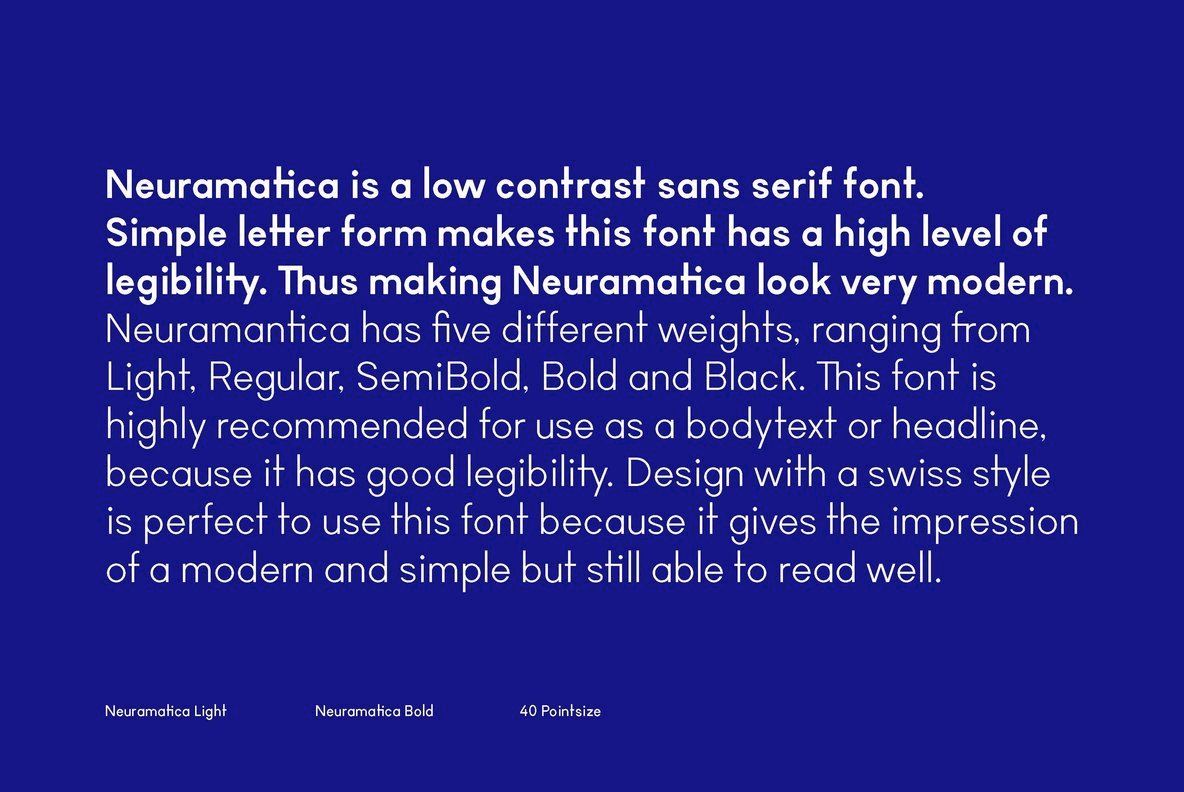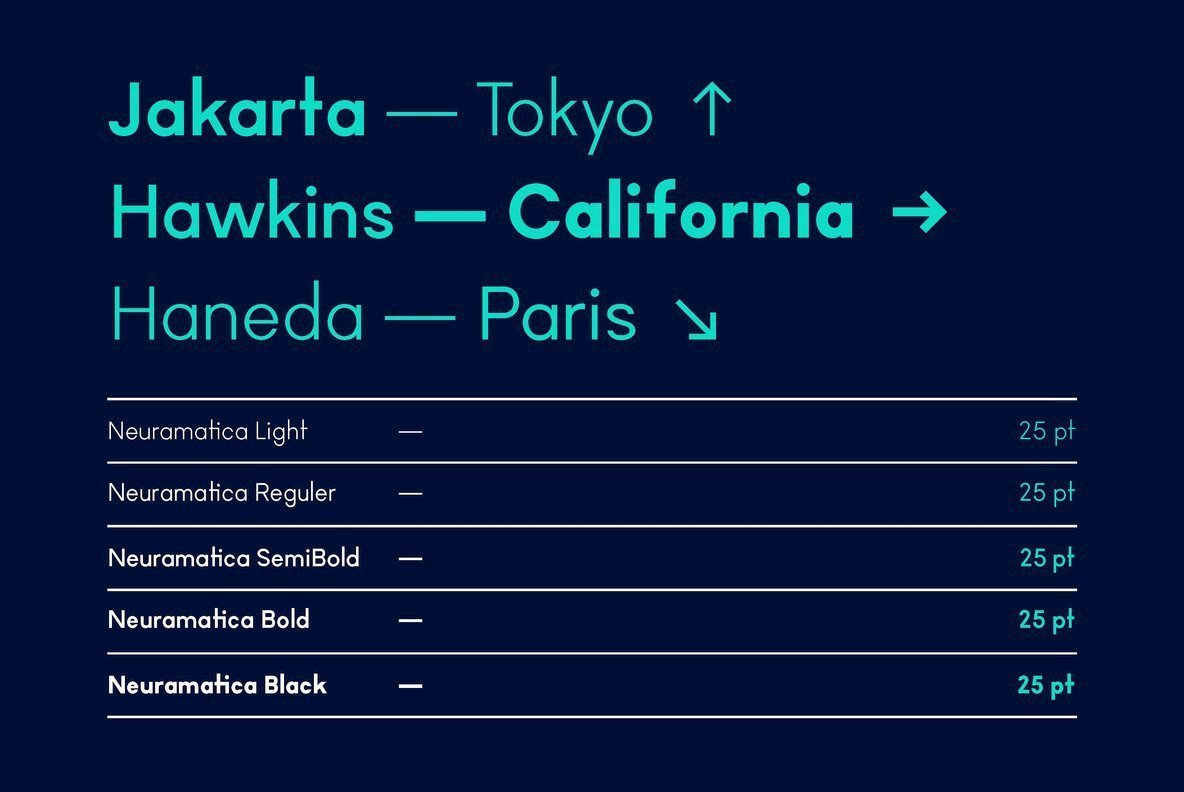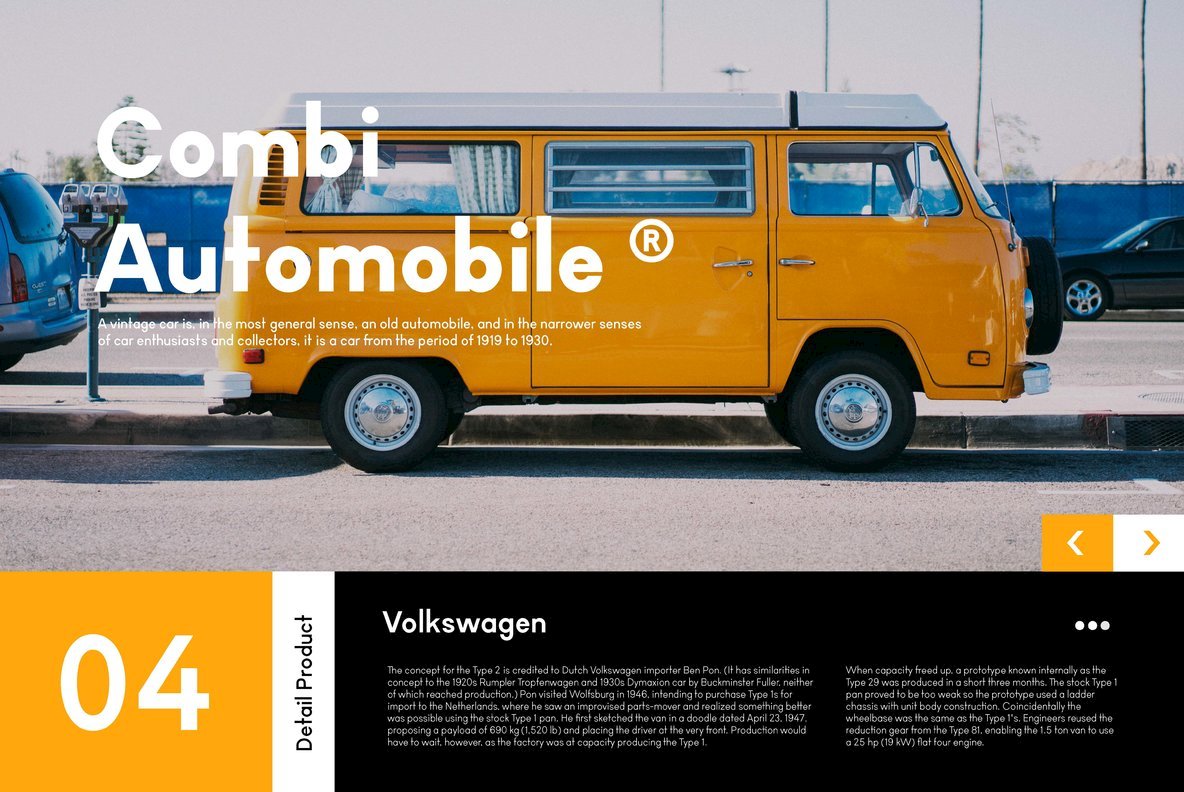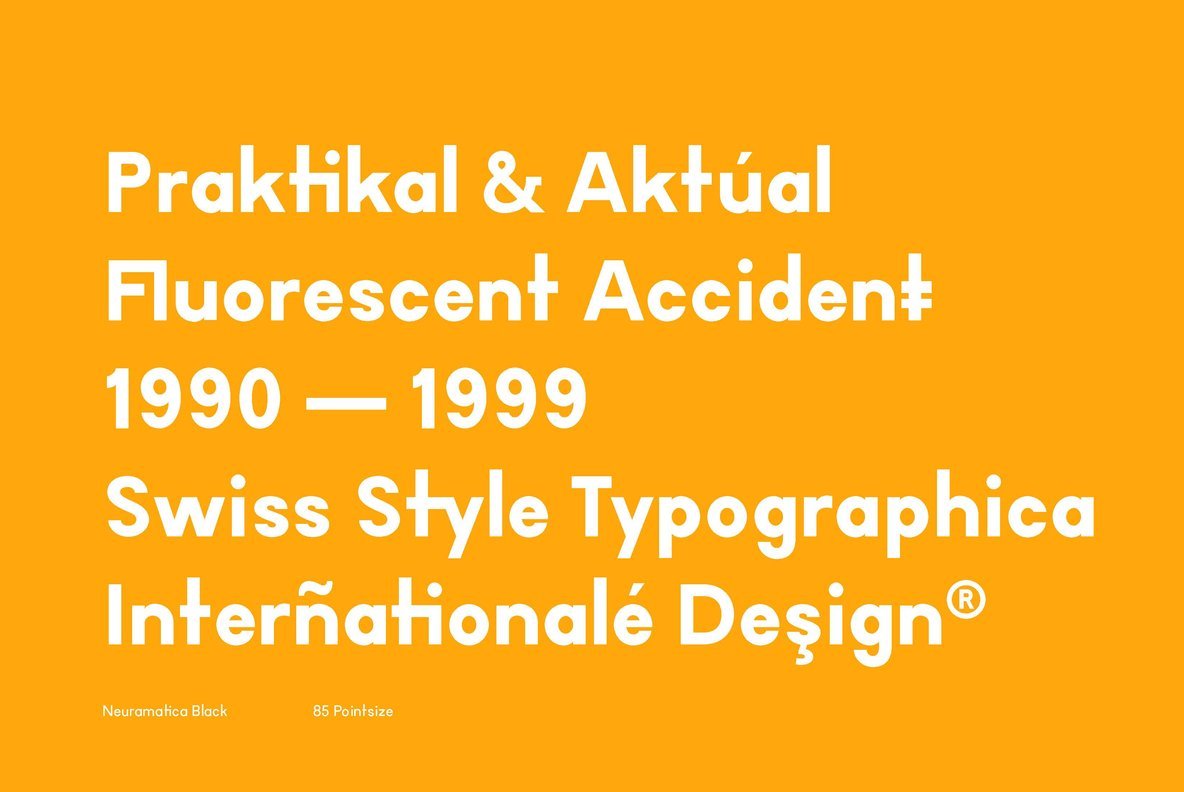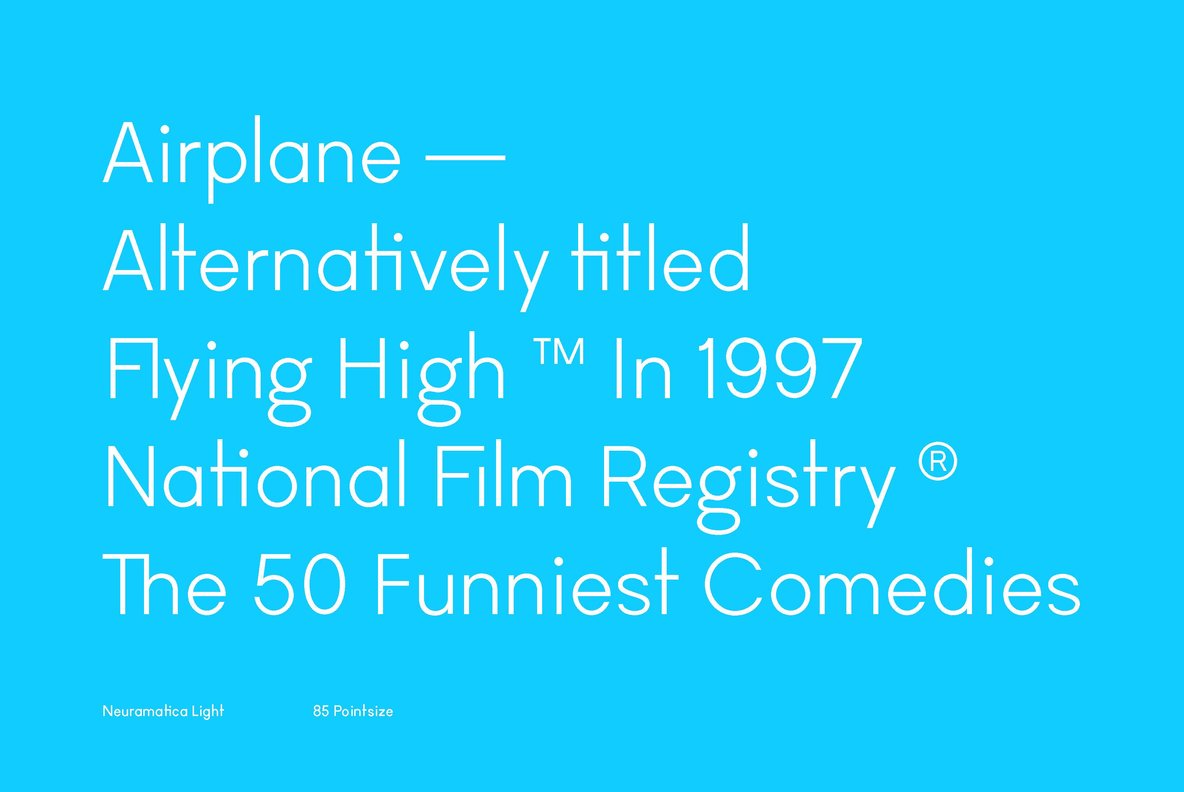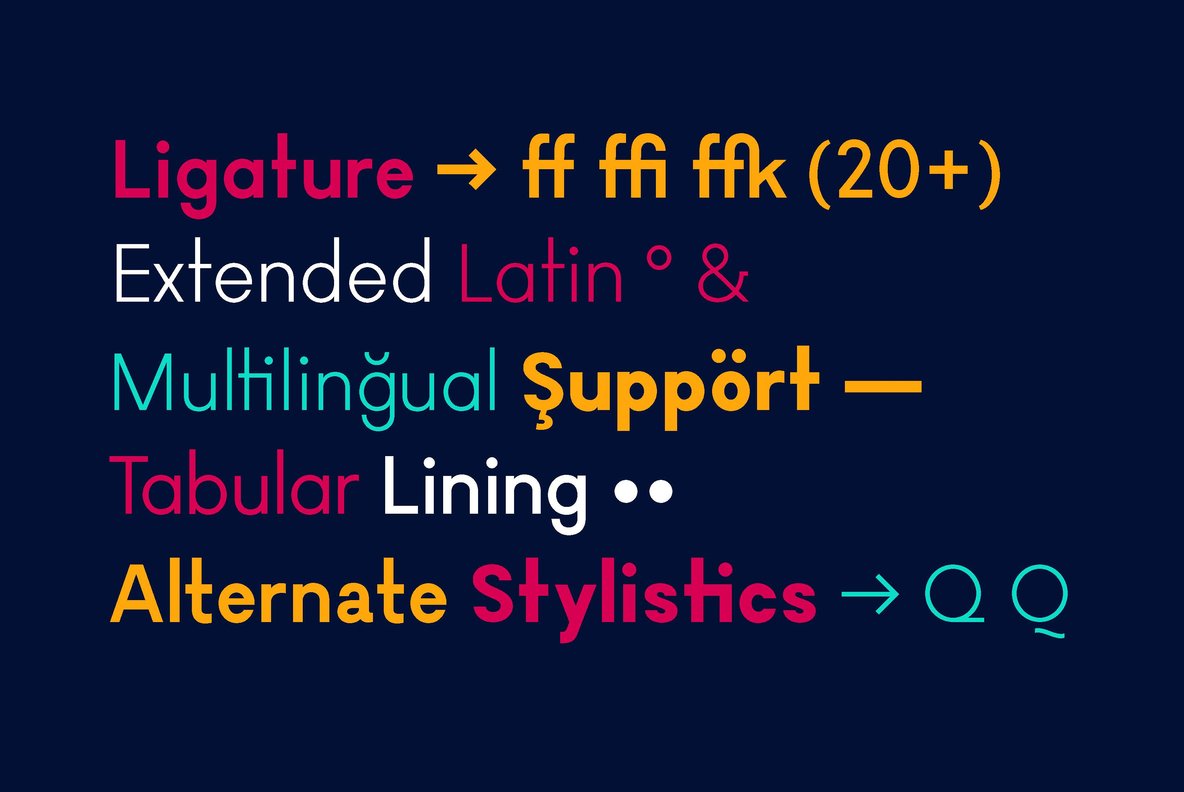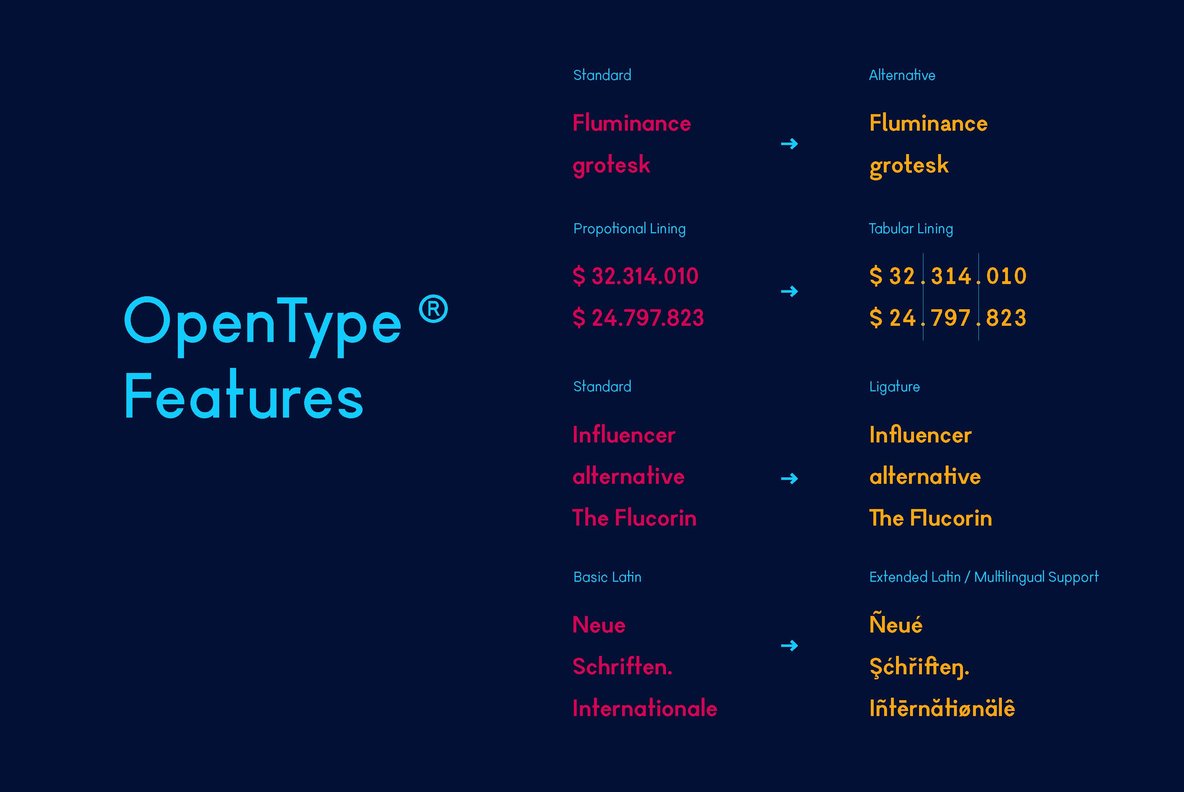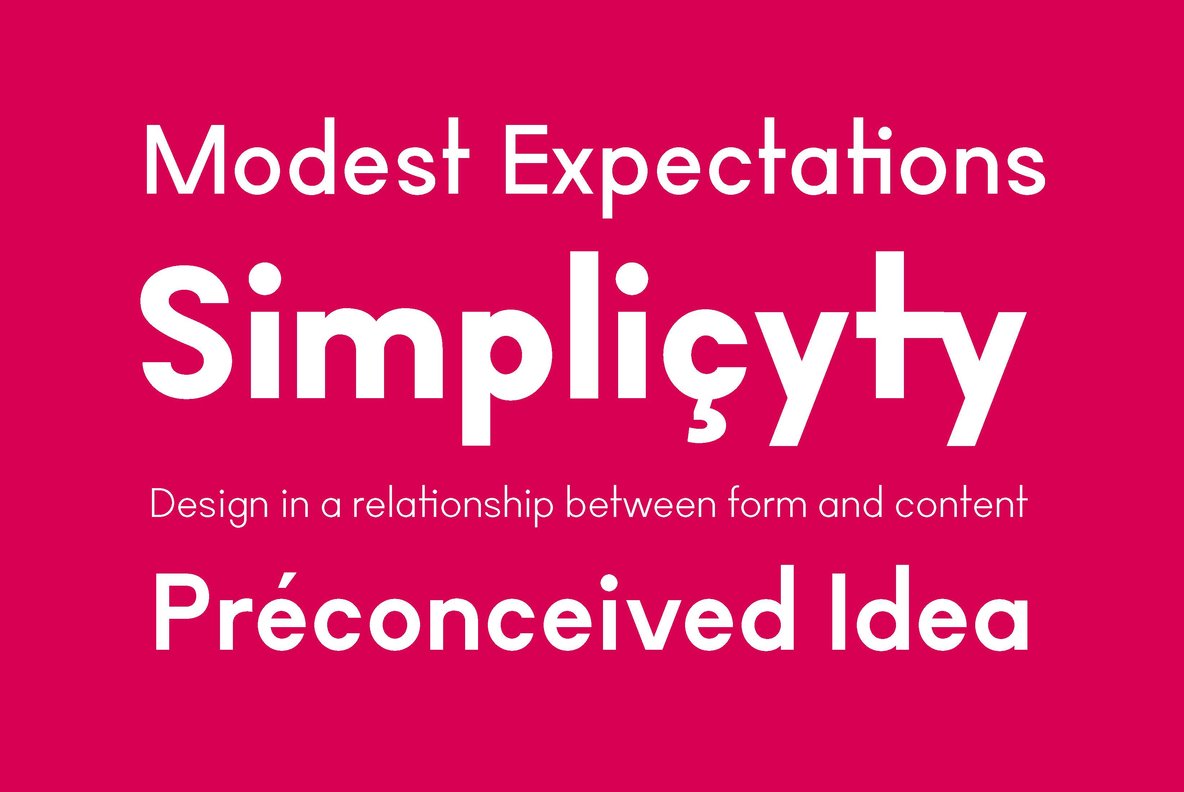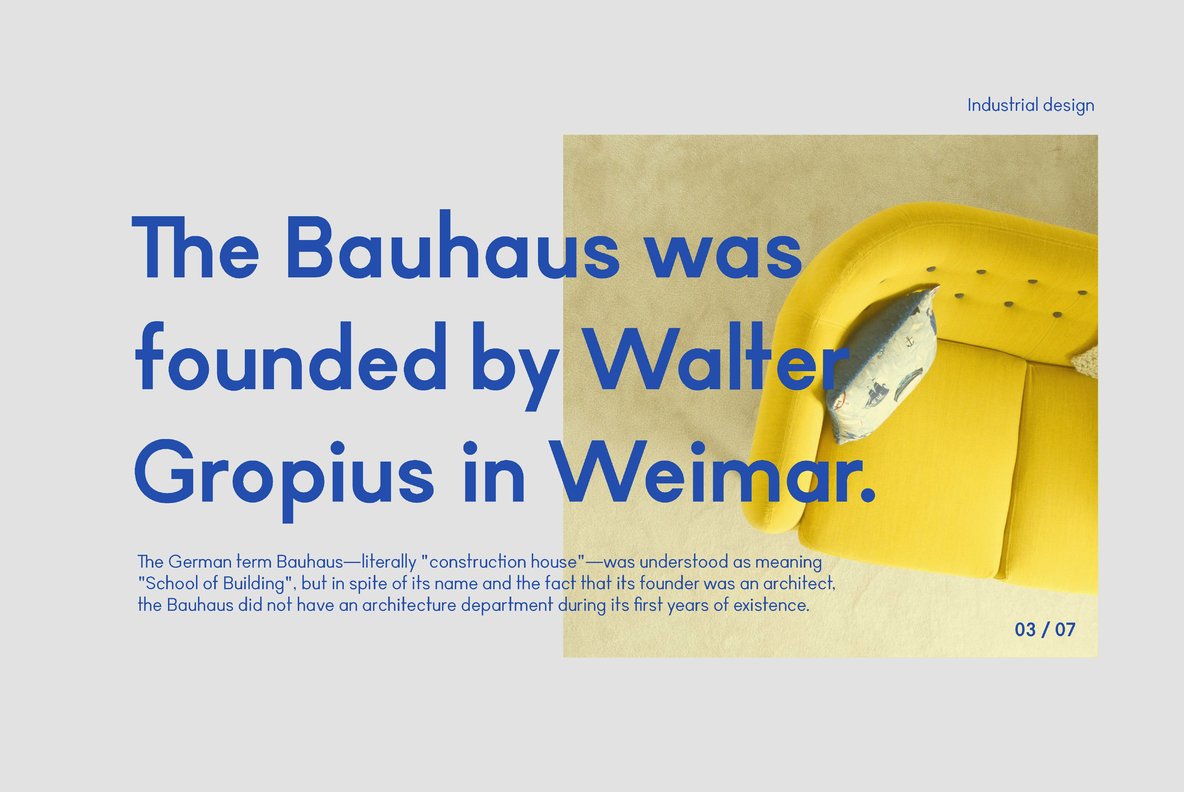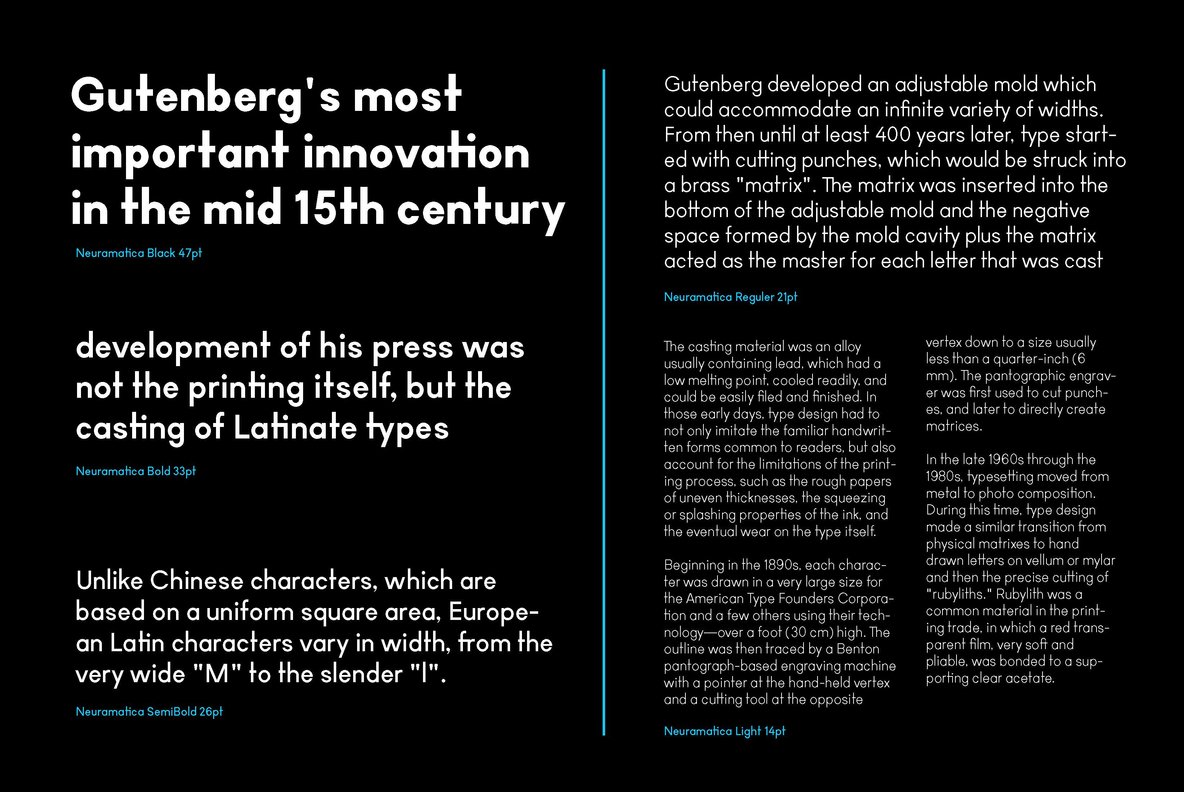
TG Neuramatica Font
Neuramatica by Tegami Type is designed for those who value clarity and modernity in their typography. This sans serif font boasts simple forms that enhance readability, making it an excellent choice for both body text and headlines. Neuramatica is versatile, with five distinct weights ranging from Light to Black, providing design flexibility and adaptability to various projects. Its low-contrast nature and streamlined appearance fit seamlessly into Swiss-style graphic design, offering a clean and contemporary aesthetic without sacrificing legibility.TG Neuramatica: A Modern Low Contrast Sans Serif